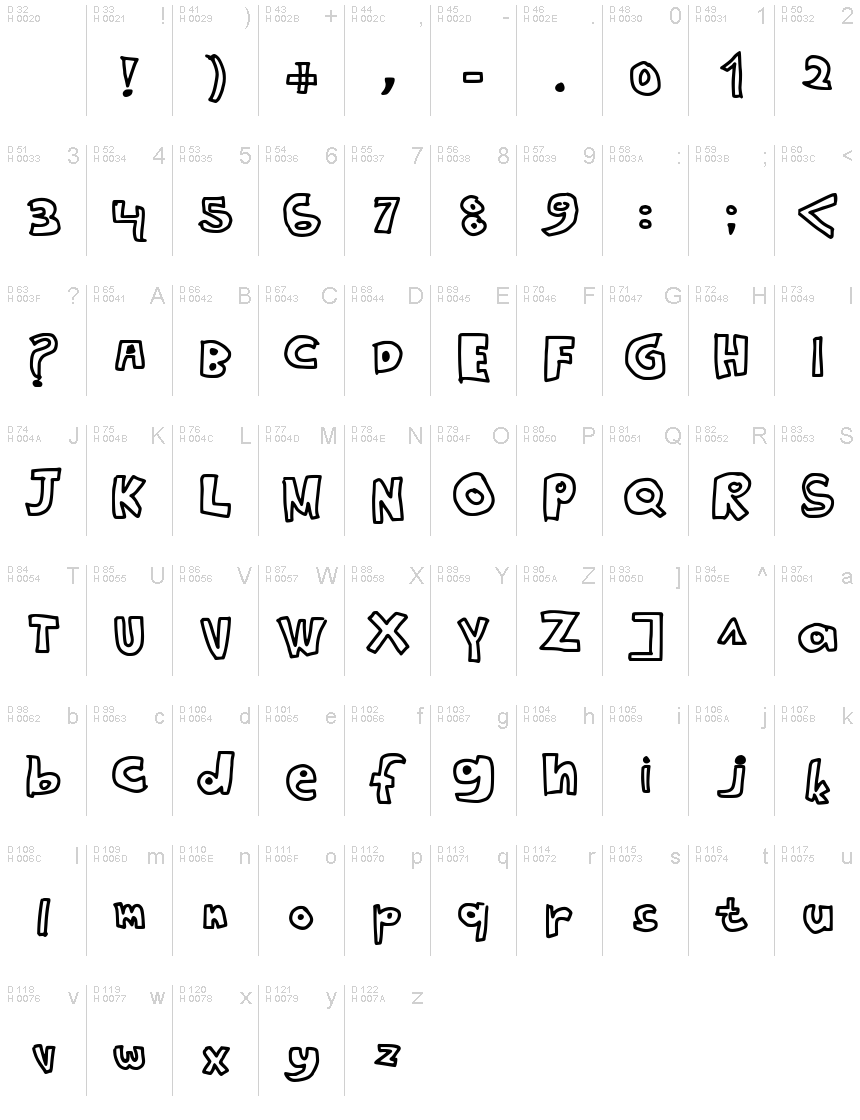
Si Paling Kotak font, designed by Altha Swita Abrianto, is a bold display typeface that captivates with its playful and outlined cartoon style. The font's whimsical charm makes it perfect for projects needing a fun and lively touch. Its exaggerated shapes and unique character design ensure that any text set in Si Paling Kotak stands out, making it ideal for children's books, posters, or graphic designs seeking a quirky flair.